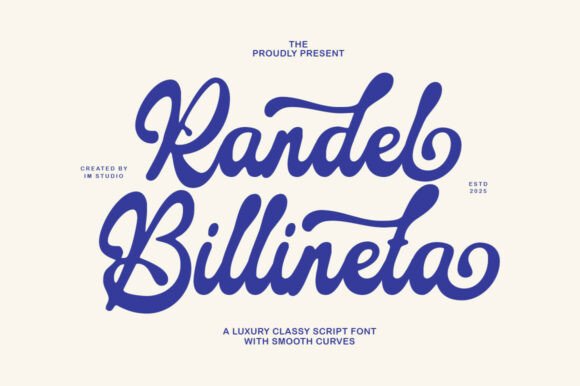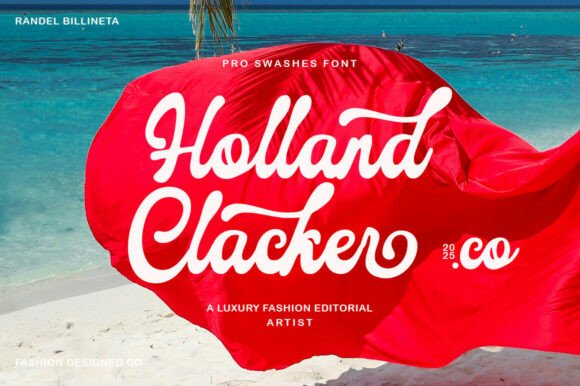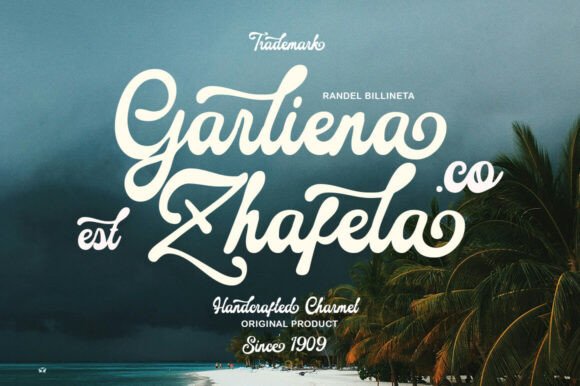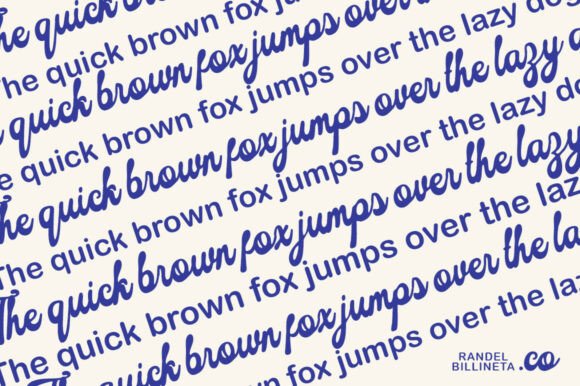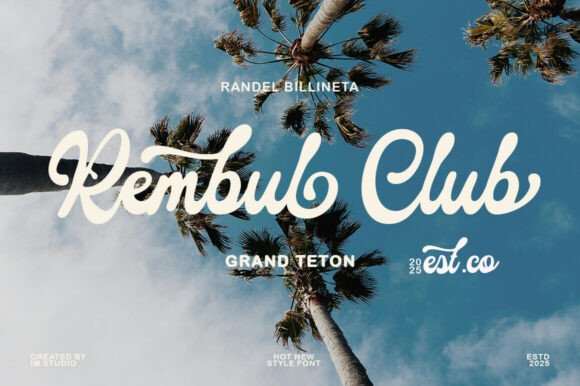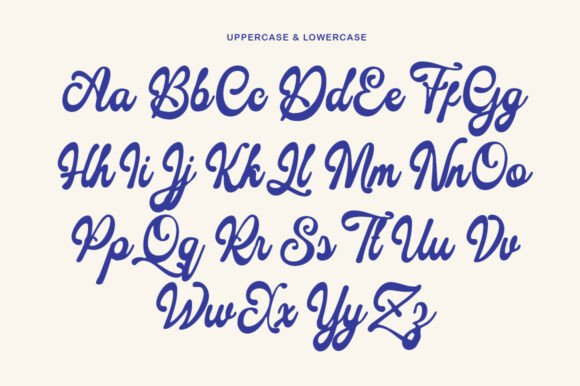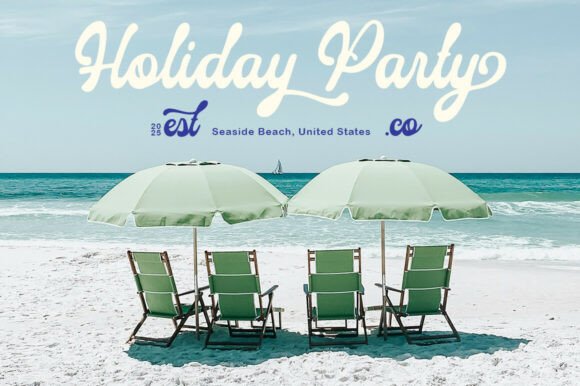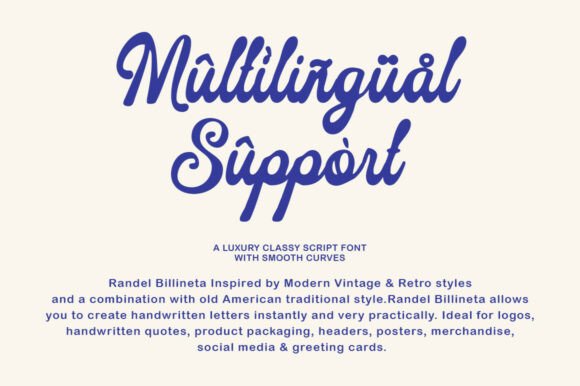
Randel Billineta Font
Drawing its inspiration from the blend of Modern Vintage & Retro aesthetics coupled with the classic American traditional style, Randel Billineta Script brings the allure of handwritten typography directly to your fingertips. Seamlessly crafted, it is perfect for creating instantly stunning handwritten letters. Showcasing versatility, it is the ideal font choice for logos, handwritten quotes, product packaging, headers, posters, merchandise, social media content, and greeting cards. Experience sophistication and style melt into each stroke with Randel Billineta Script.